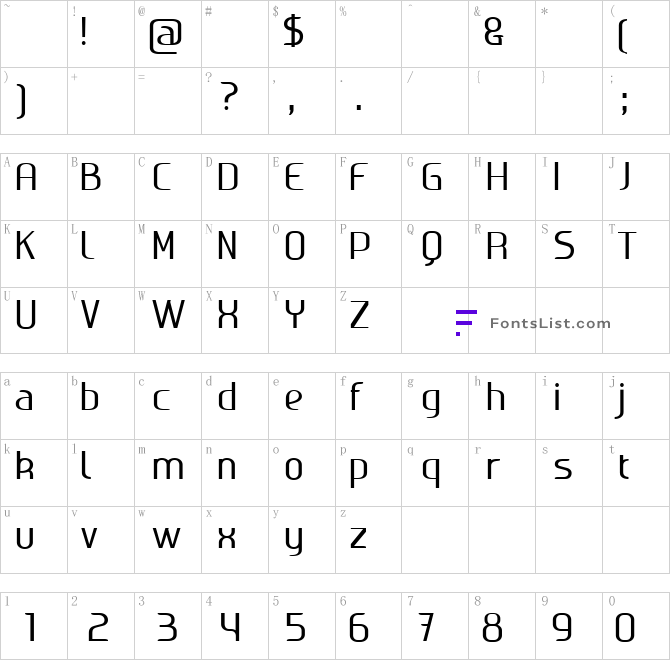
- Font Name:Ageone Regular
Ageone-Regular.ttf is a very beautiful artistic font, Ageone-Regular.ttf is widely used in the design and printing of various books and pictures,Ageone-Regular.ttf has a strong visual impact,Ageone-Regular.ttf is a commonly used font in newspapers, magazines and books, and is used in posters, e-commerce Poster design, store design, logo design, font design and other fields.Ageone-Regular.